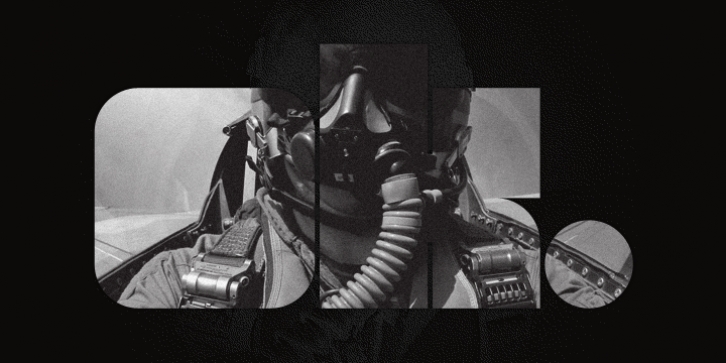
Exablock was published by Scannerlicker. Exablock contains 2 styles and family package options.
Exablock is a display typeface based on a 6x6 grid, highly modular and geometric.
Diacritics appear as negative space cut into the glyph form.
· Exablock Square
· Exablock Round